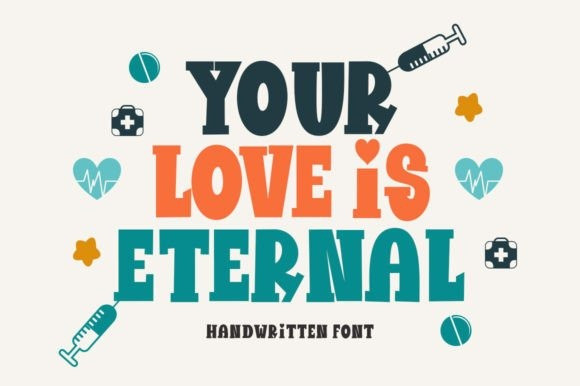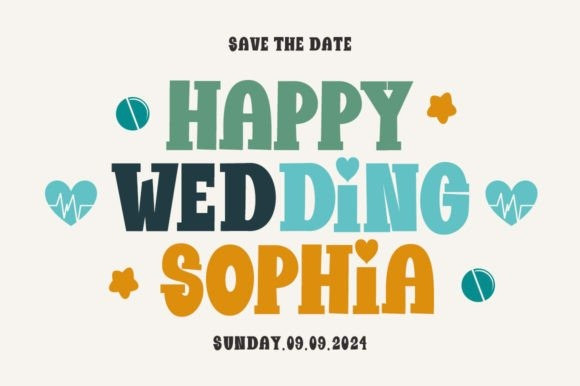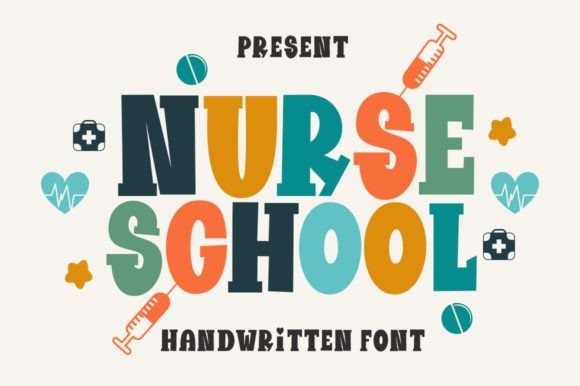
Nurse School Font
Nurse School Font is a playful and cute display font. Use it to add that special retro touch to any design idea you can think of! Masterfully designed to become a true favorite, this font has the potential to bring each of your creative ideas to the highest level!